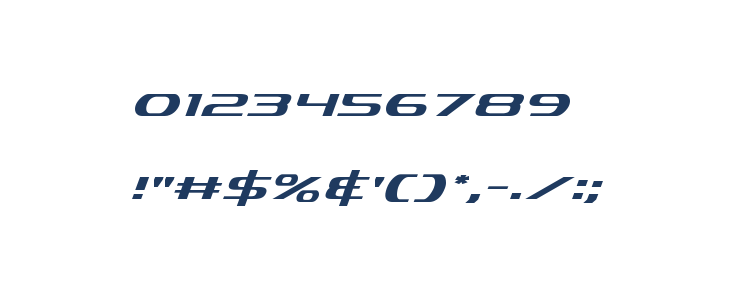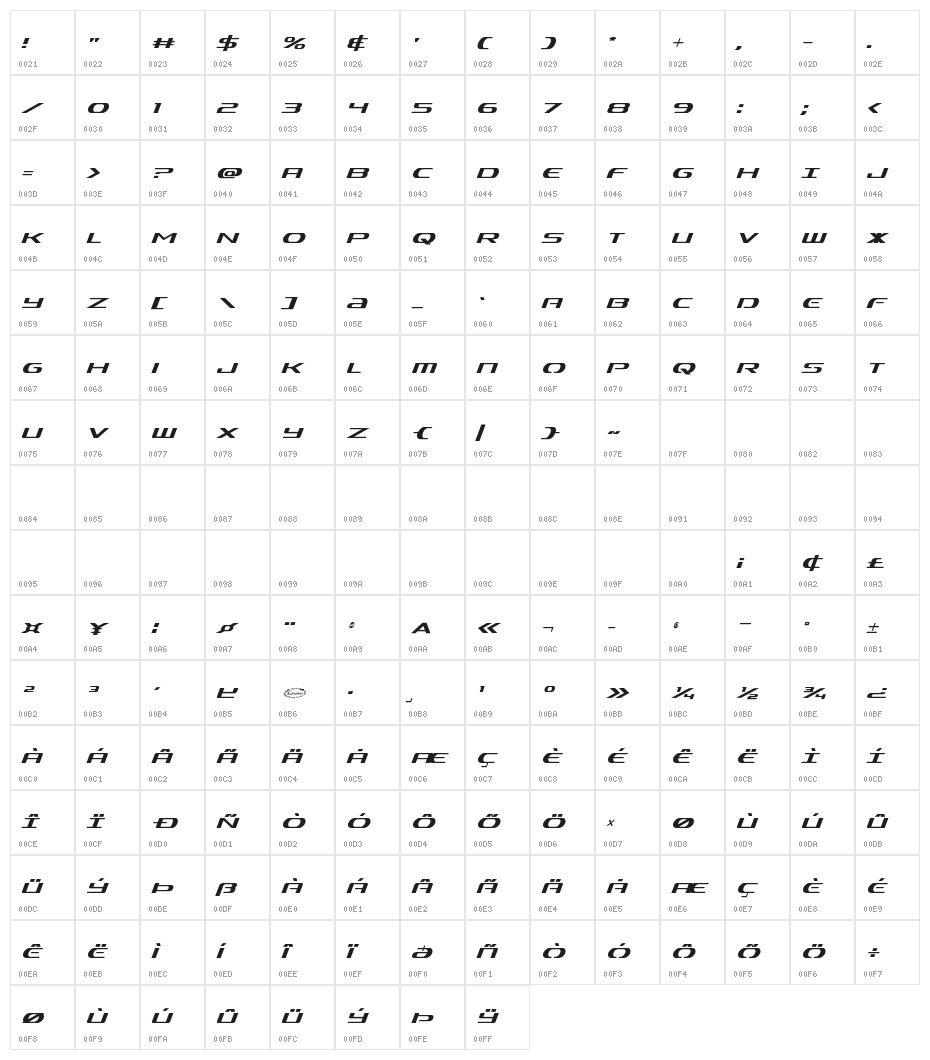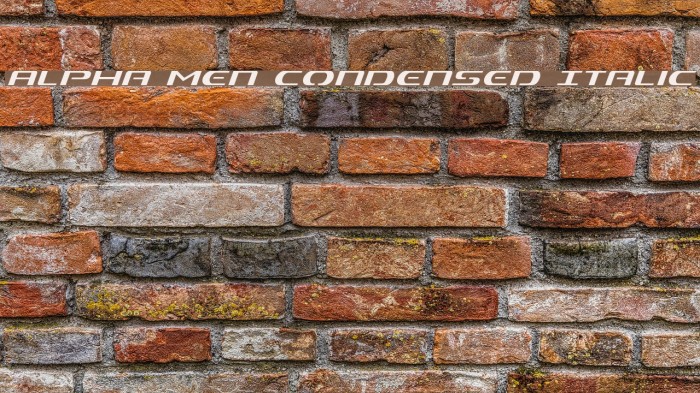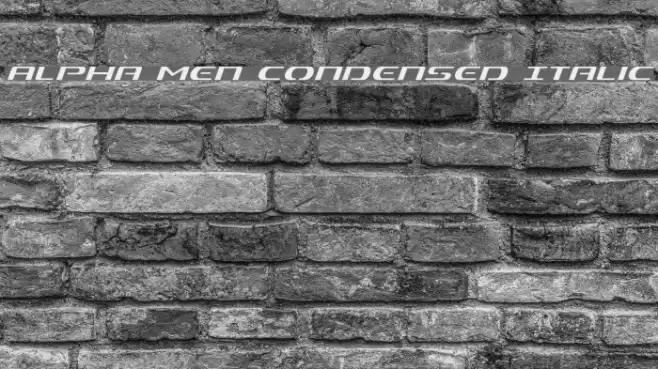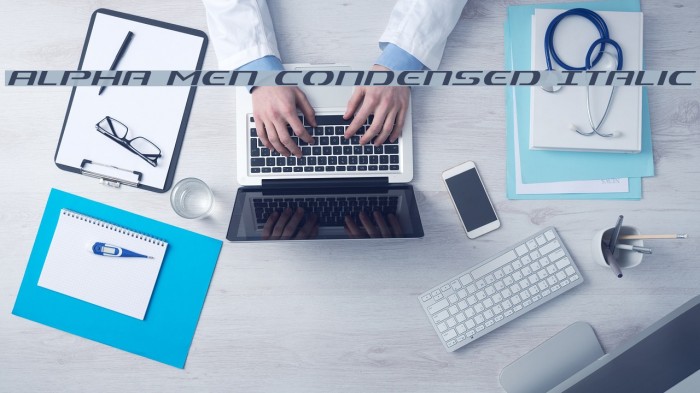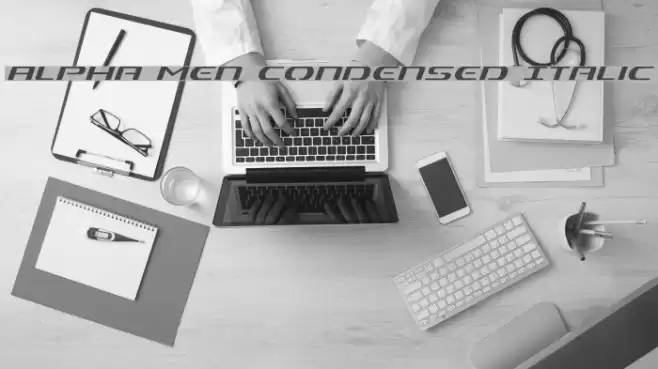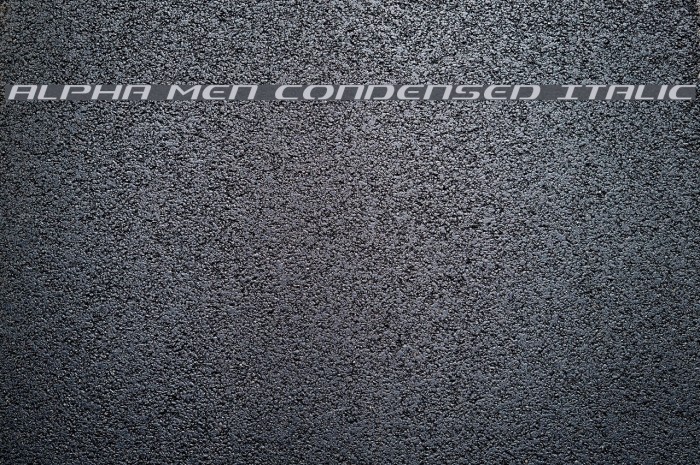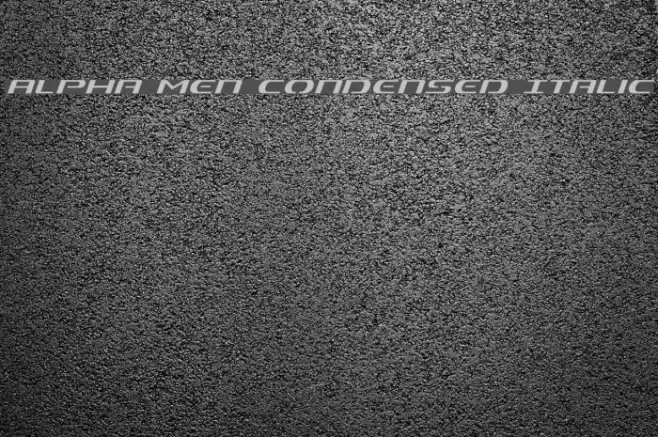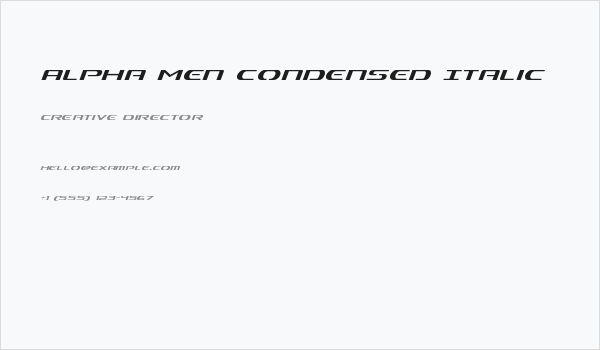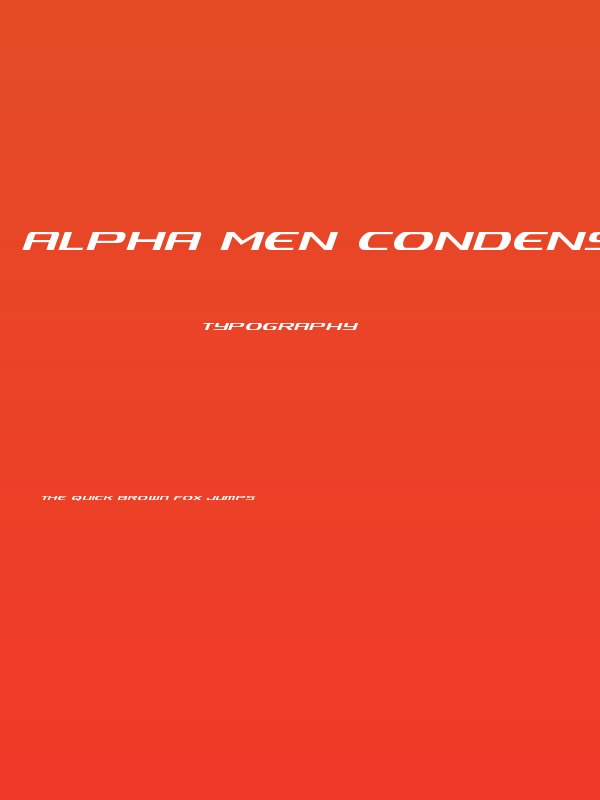
Alpha Men Condensed Italic Font
Alpha Men Condensed Italic Description
This font features a sleek, modern design with a condensed and italicized style. The characters are slightly slanted, giving a sense of motion and dynamism. The strokes are consistent, with medium contrast, enhancing readability while maintaining a stylish appearance. The uppercase and lowercase letters are well-proportioned, and the numerals are clear and distinct. Special characters are included, making it versatile for various applications. The overall aesthetic is futuristic, making it suitable for projects that require a contemporary and edgy look.
| Use Case | Logos, Headlines, Branding |
| Proposed Projects | Ideal for branding, advertising, sports team logos, and tech-related designs. |